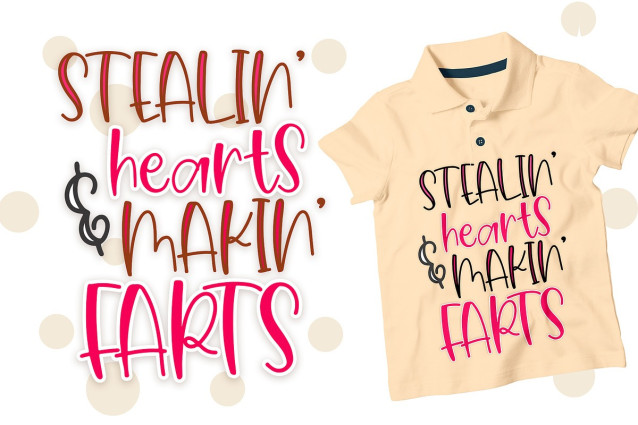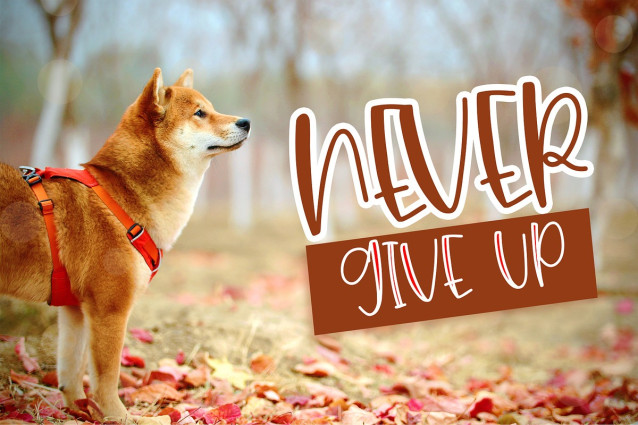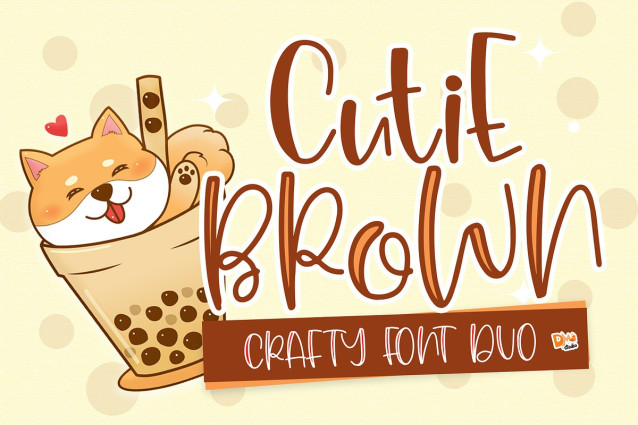
Cutie Brown Font
Cutie Brown Font is a cute, quirky and crafty handwritten font duo which will make your design more gorgeous! It has black and regular version, you can combine both to create the uniqueness or will be great with another fonts!